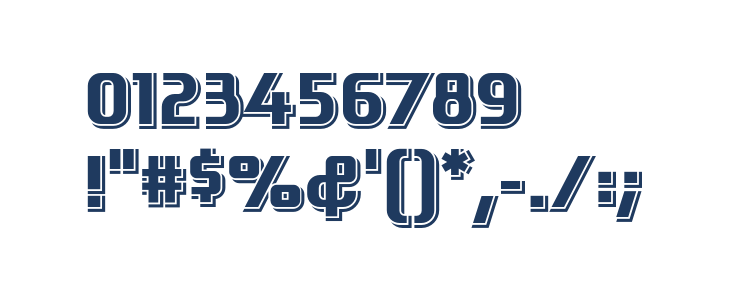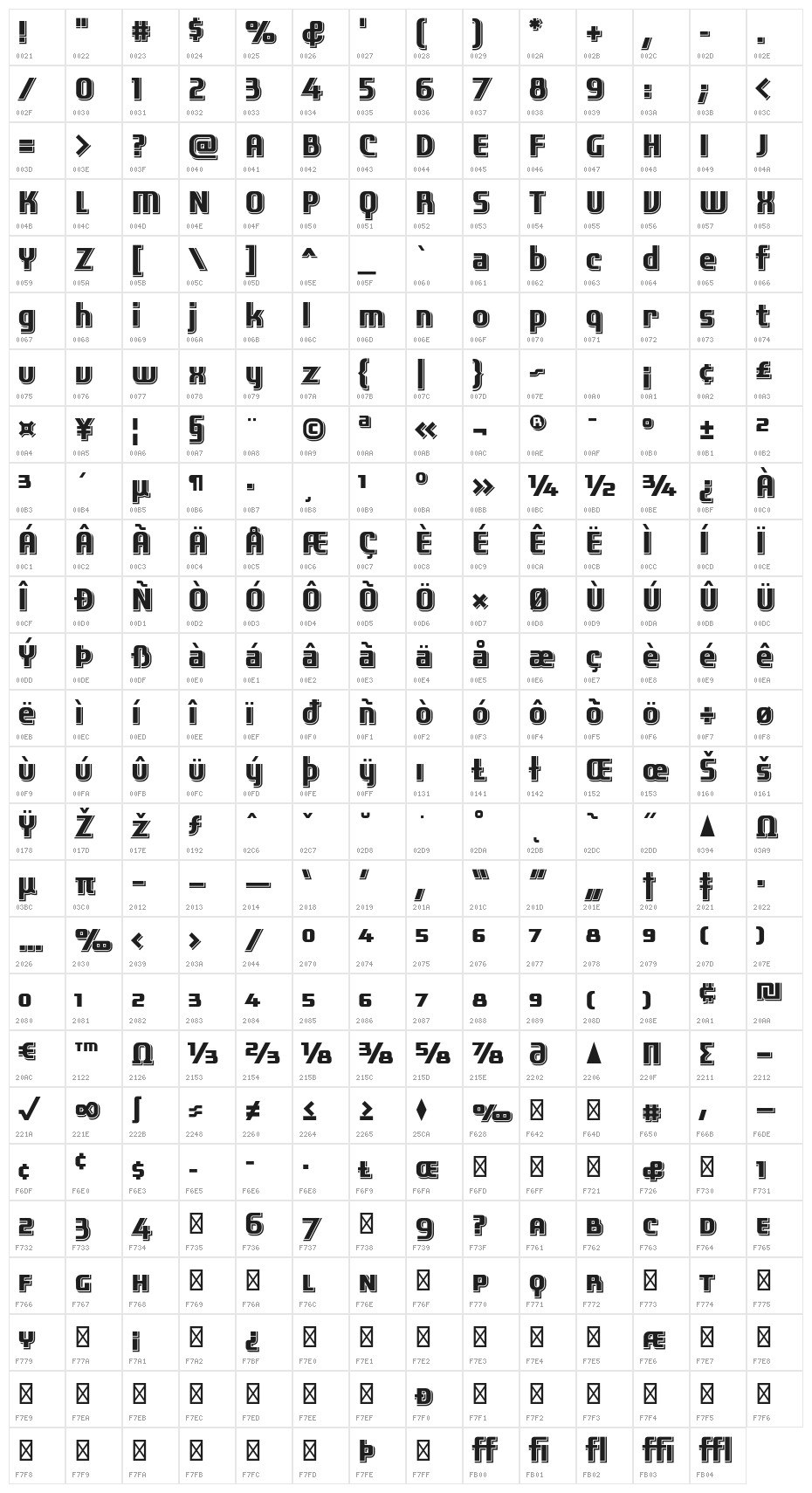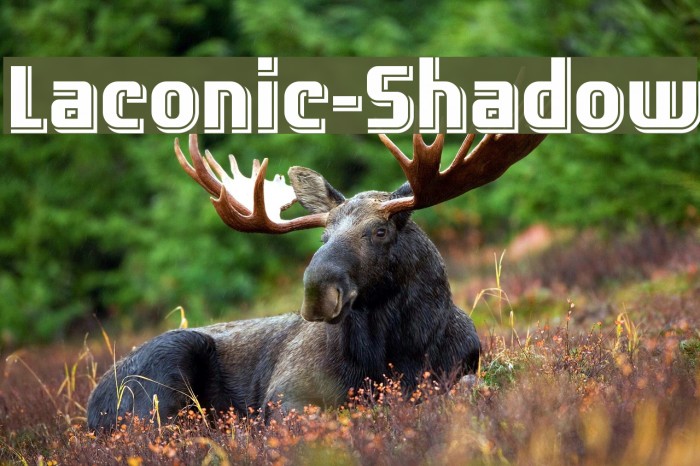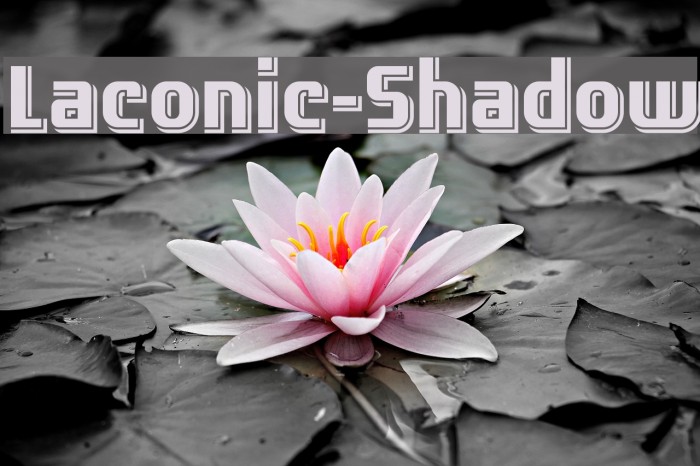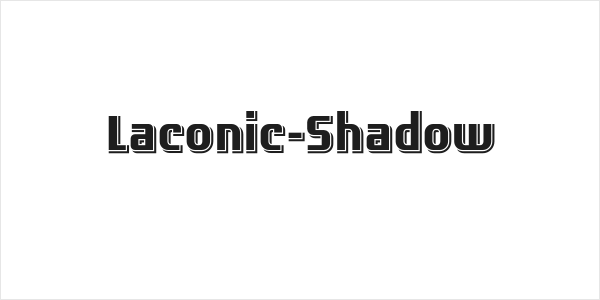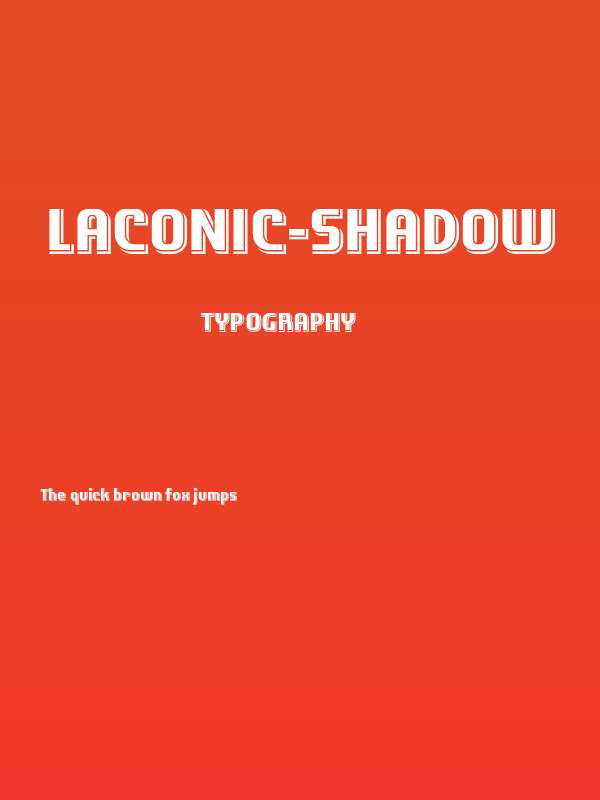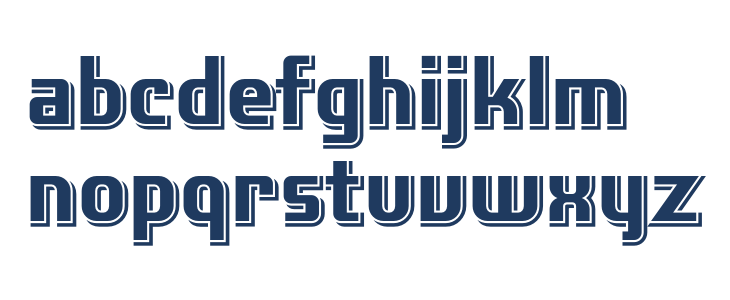
Laconic-Shadow Font
Laconic-Shadow Description
This font features a bold and striking design with a shadow effect that gives it a three-dimensional appearance. The characters are uppercase and lowercase letters, numbers, and a variety of special symbols. Each letter is outlined with a thick black border, creating a strong contrast with the inner white space. The geometric shapes and clean lines contribute to a modern and impactful look. The font's style is reminiscent of retro signage, making it suitable for projects that require a bold and attention-grabbing typeface.
| Overall Style | Retro, Modern |
| Proposed Projects | Ideal for posters, headlines, logos, and branding materials that need a bold and eye-catching appearance. |